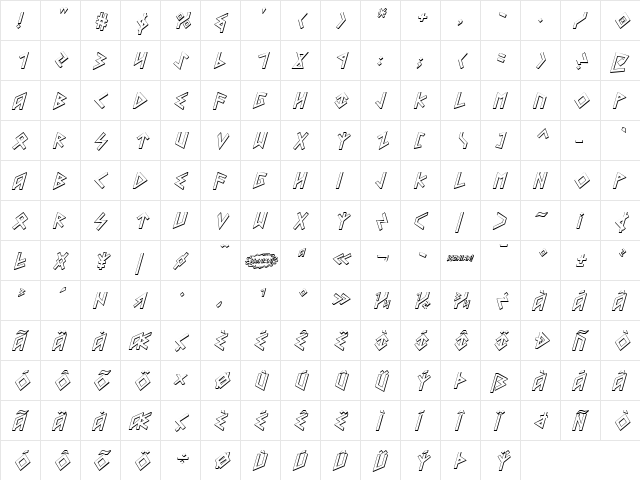
Heorot Shadow Italic Italic Font Preview
Heorot Shadow Italic Italic
Heorot Shadow Italic Italic Font Details
Design Context for Heorot Shadow Italic Typeface
Heorot Shadow Italic brings ornamental detail and strong personality to headlines and identities, where visual impact matters more than quiet functionality. The dynamic lean of this cut emphasises speed and emphasis in any layout.
Font Pairing: Pair with a clean neutral sans-serif for body copy to let Heorot Shadow Italic's character lead without overwhelming the composition.
Pro Tip: Use Heorot Shadow Italic exclusively at display sizes — it was designed to be seen, not read at length. Let a neutral companion handle body copy.